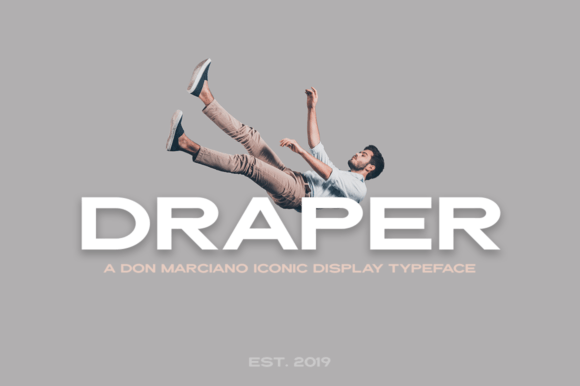
In the realm of typography, the Draper Font stands alone as a beacon of mid-20th century allure, a tribute to the vibrant energy of New York's advertising scene. This display font, meticulously crafted by the visionary DonMarciano, captures the essence of an era where creativity and style converged, igniting a new chapter in design.
Step into the world of Draper Font, where classic sophistication meets modern sensibilities. Its clean lines, reminiscent of a bygone era, evoke a sense of nostalgia, while its bold and confident strokes exude a contemporary flair. Whether you're a creative professional seeking to elevate your designs or a business owner yearning for a distinctive brand identity, Draper Font is your perfect companion.
With its versatility, Draper Font effortlessly adapts to a multitude of creative endeavors. Design logos that command attention, promotional materials that leave a lasting impression, invitations that spark anticipation, and posters that demand a second glance. Its sleek and polished appearance adds a touch of elegance to any project, ensuring your message shines through with clarity and impact.
Draper Font is more than just a collection of characters; it's a gateway to a world of boundless creativity. Unleash your imagination and let your designs soar to new heights, knowing that Draper Font will faithfully convey your ideas with style and panache. Join the ranks of those who appreciate the finer details, those who recognize the power of typography to transform the ordinary into the extraordinary.
Immerse yourself in the Draper Font experience and discover a font that not only enhances your designs but also reflects your unique personality and vision. Let your creativity run wild as you explore the endless possibilities that await you. Embrace the Draper Font, and together, embark on a journey of design excellence.